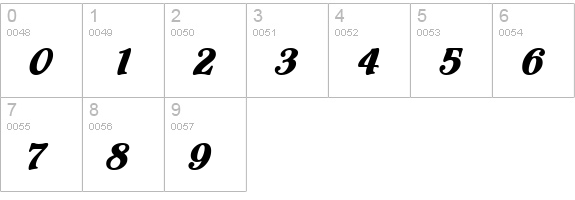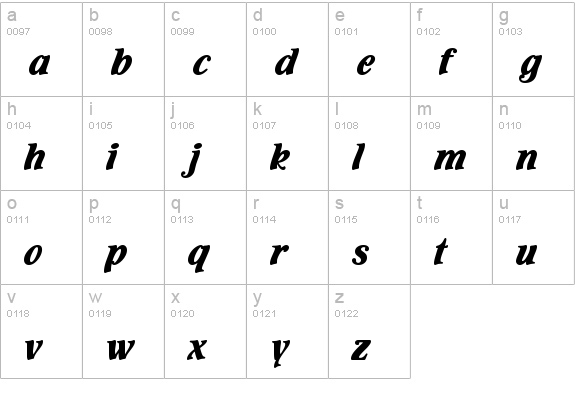
Fuego-Regular Font Details
Fuego-Regular is the standard, neutral variant in the Fuego typeface family \xE2\x80\x94 well suited to general body text, paragraphs, and standard typographic work.
Fuego-Regular is a sleek and modern typeface that effortlessly blends elegance with readability. This versatile font is perfect for a wide range of design projects, from branding to editorial design. With its clean lines and balanced proportions, Fuego-Regular exudes a sense of sophistication while maintaining a friendly and approachable feel. The best part? Fuego-Regular is available for free download at FontsMarket.com. This means you can enjoy the beauty and functionality of this font without any cost. Whether you're a seasoned designer looking to add a fresh touch to your projects or a beginner exploring typography for the first time, Fuego-Regular is a fantastic choice that won't break the bank. Download Fuego-Regular today and enhance your designs with this stylish and versatile font.